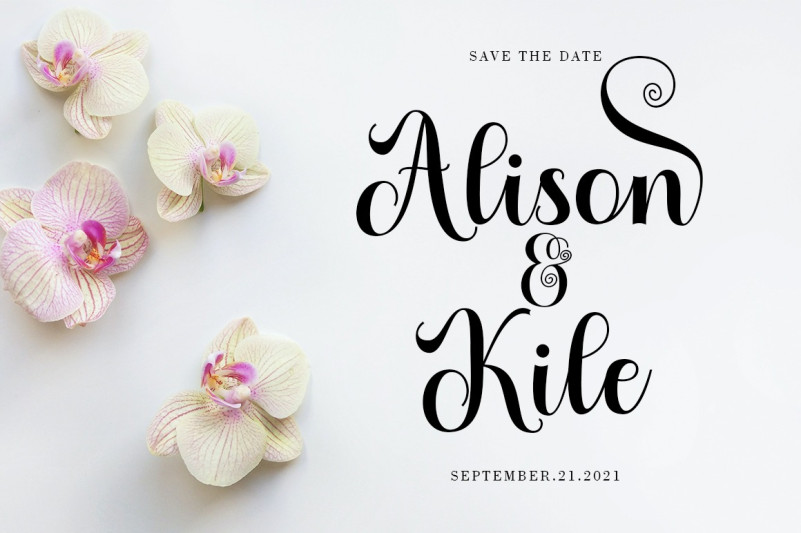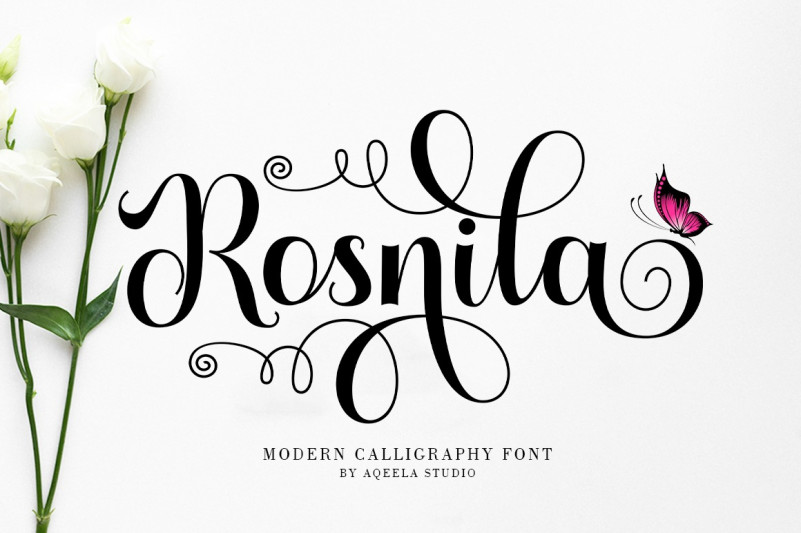
Rosnila Font
Rosnila Script Font is a romantic and sweet calligraphy typeface with characters that dance along the baseline. It will add a luxury spark to any design project that you wish to create! This font is PUA encoded which means you can access all of the amazing glyphs and ligatures with ease!